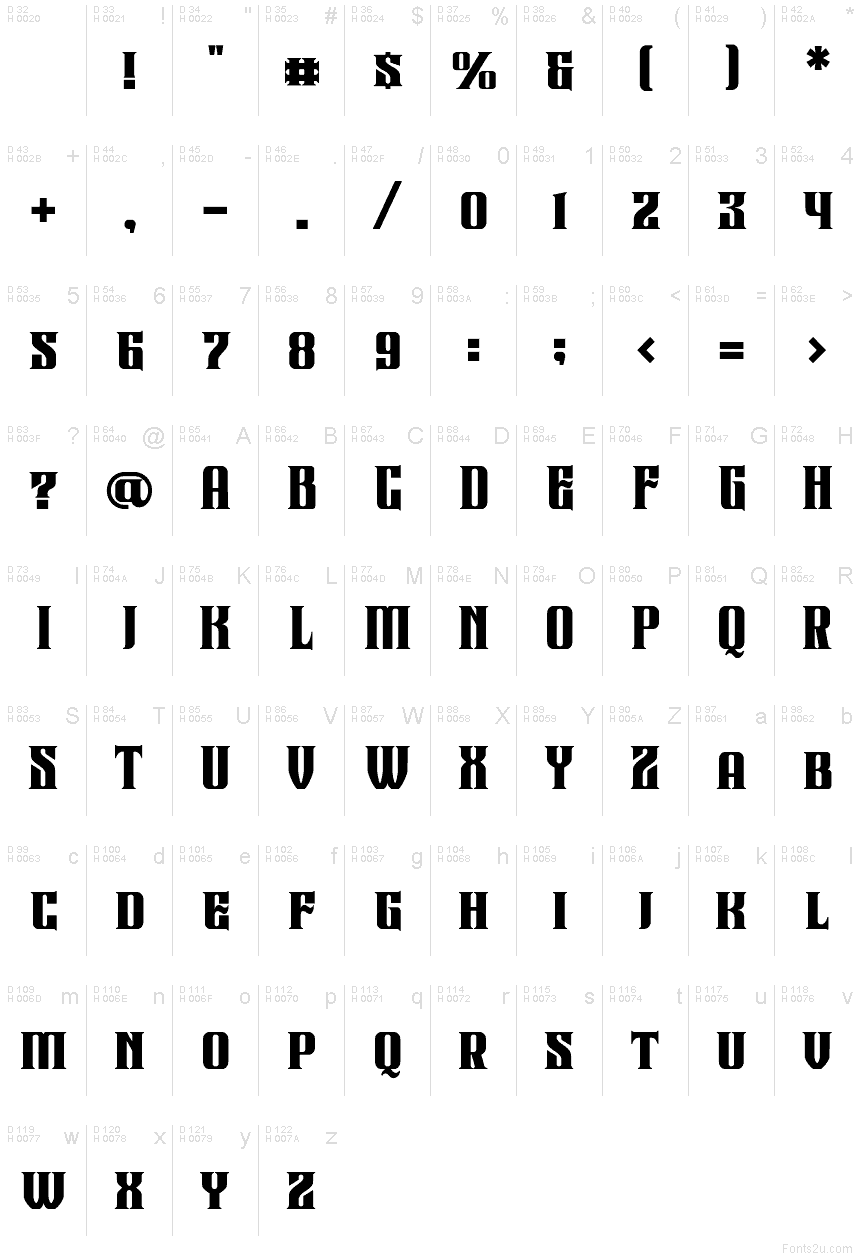
Rock Glader Regular
Rock Glader font, designed by Blankids, is a bold condensed display font with a retro style. It features geometric influences and an assertive, strong presence, blending vintage touches with a modern flair. Its decorative serifs give it an eye-catching look that can’t be ignored.
Rock Glader by Blankids Studio